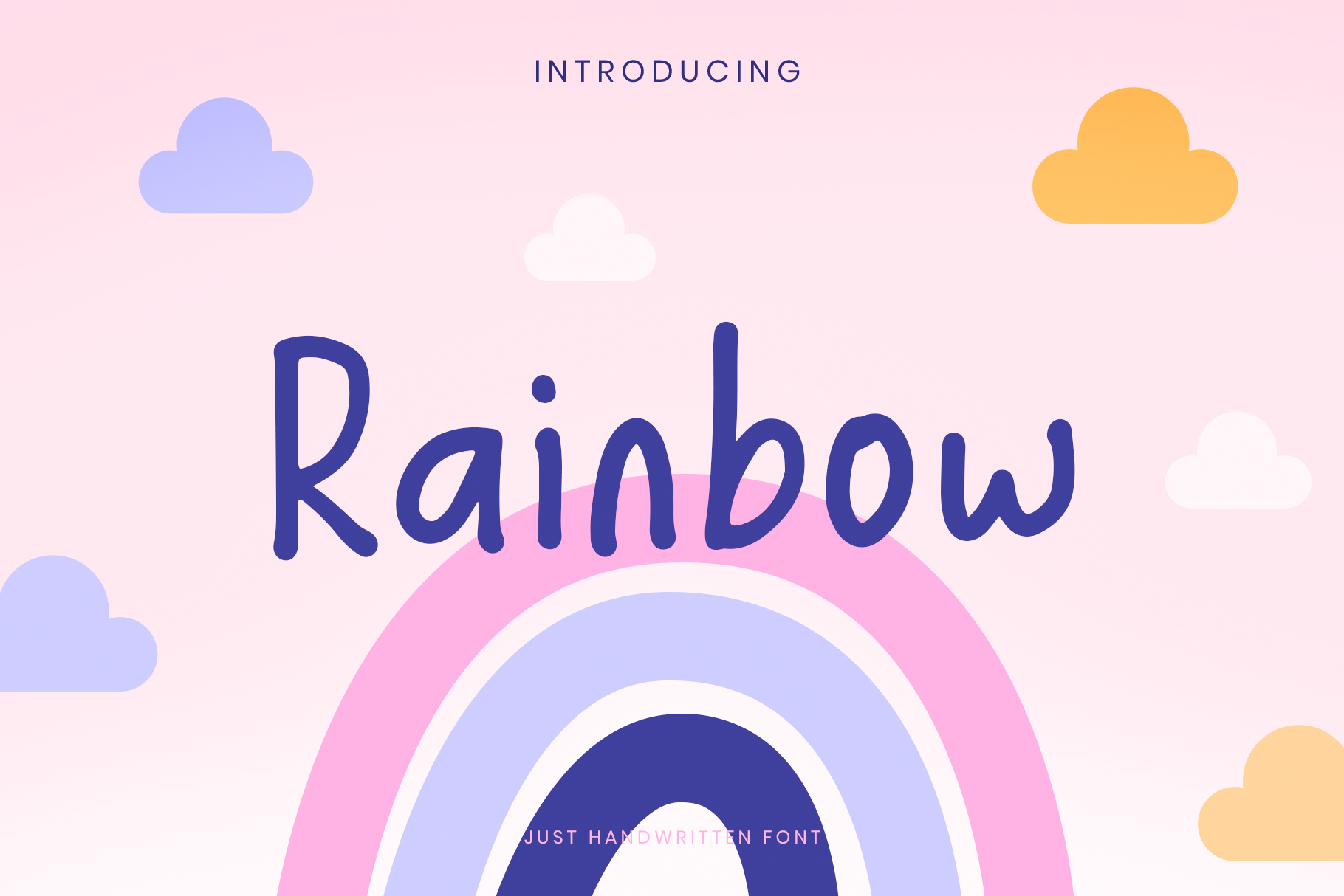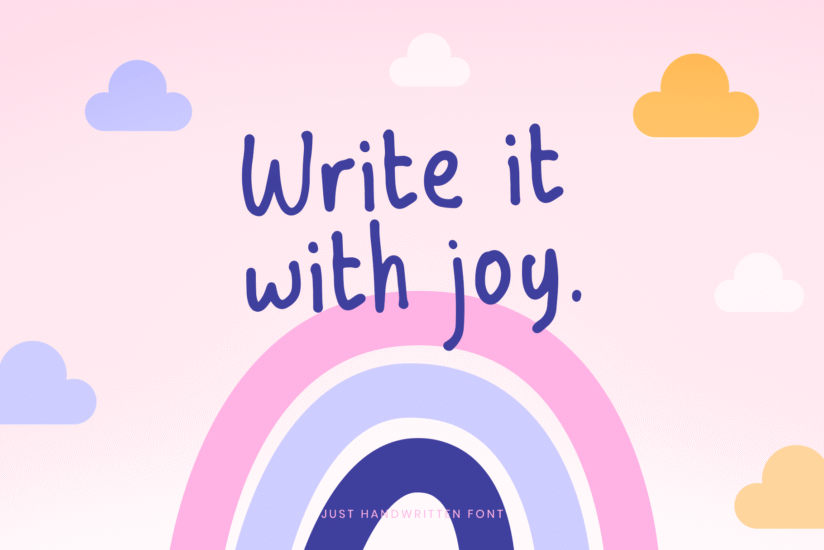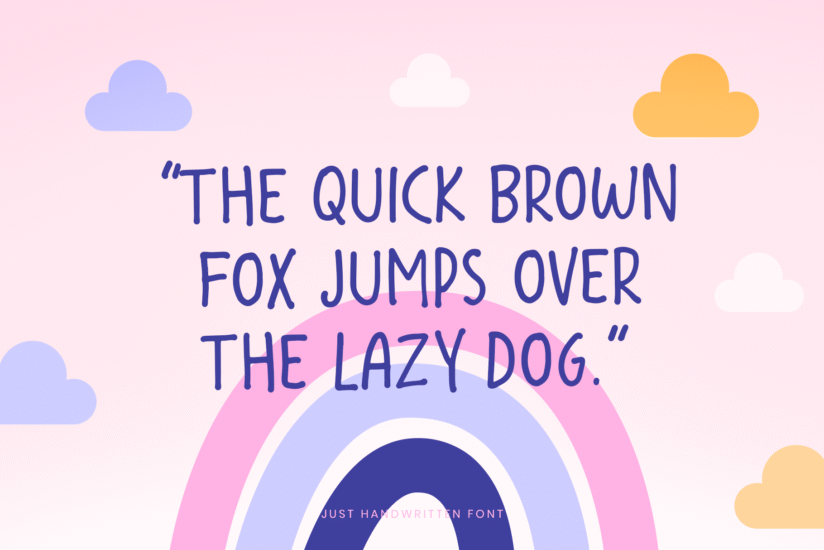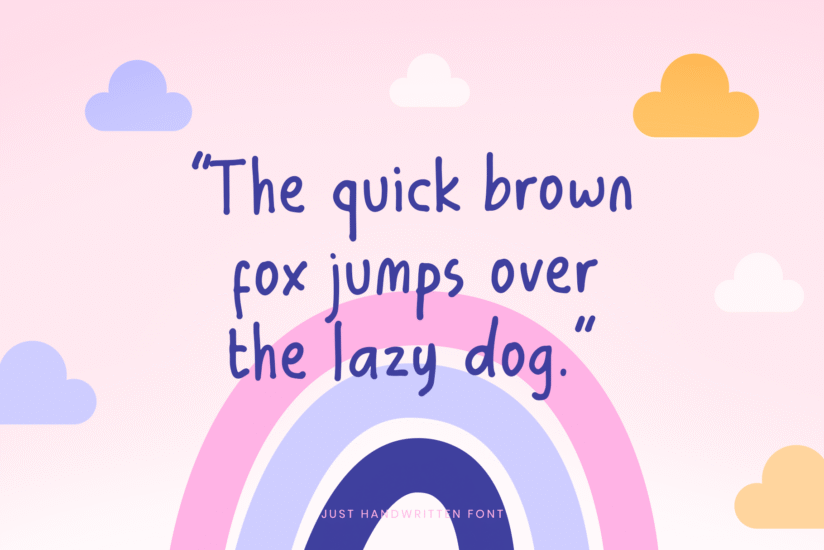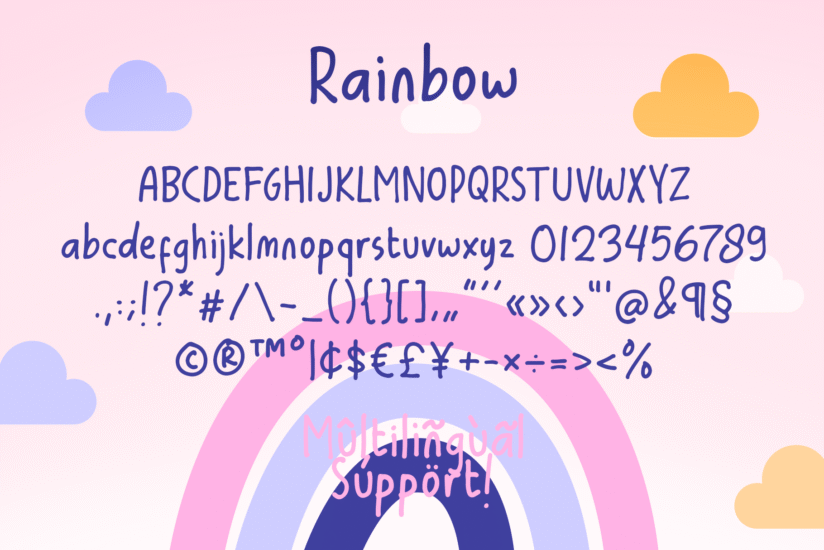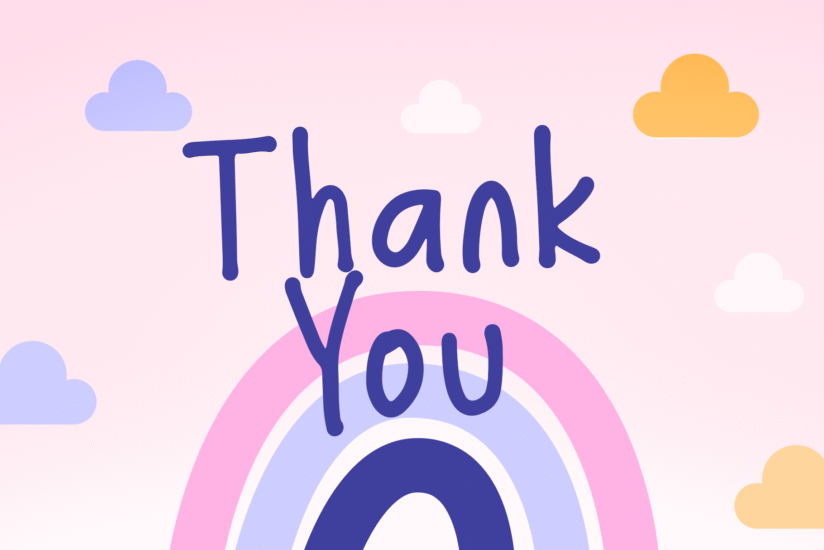
Unleash the spectrum of creativity in your notes with Rainbow Handwritten Font, hailed as the ultimate choice for those seeking the best font for notes. This font captures the essence of vibrancy and clarity, adding a touch of personality to your written words. The carefully crafted characters and varied strokes make Rainbow an ideal companion for note-taking, ensuring your ideas stand out with brilliance.
Rainbow Handwritten Font is not just a font; it’s a celebration of expression. Whether you’re jotting down thoughts, creating study materials, or simply making your notes visually appealing, Rainbow offers versatility and charm. Elevate your note-taking experience with the captivating hues of this extraordinary font.
Choose Rainbow Handwritten Font for notes that speak volumes in color and character.